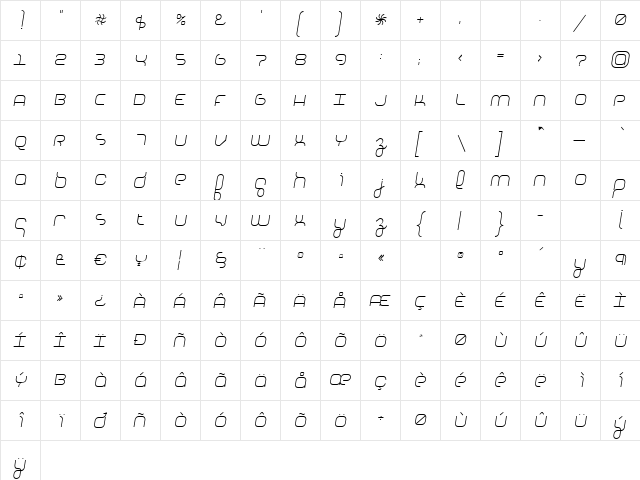
BasixOblique Regular
Design Context for BasixOblique Typeface
BasixOblique is a composed and adaptable typeface that performs quietly and consistently across a wide range of design contexts. Its italic angle brings a sense of urgency and motion to the letterforms.
Pro Tip: Use BasixOblique for emphasis, pull quotes, and subheadings where its slanted energy can add rhythm to the layout.